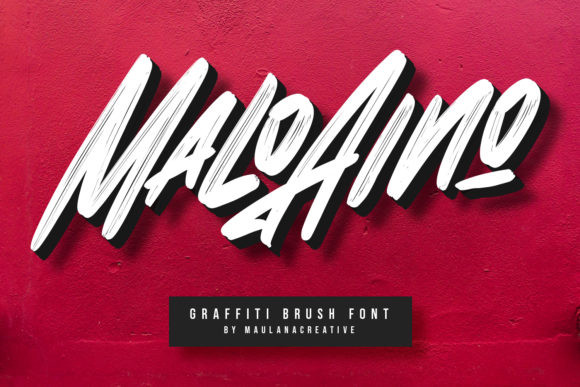
Malo Aino Font
Malo Aino is a brushed display font, featuring a dramatic, bold urban style. Add it to your most creative ideas and notice how it makes them come alive!